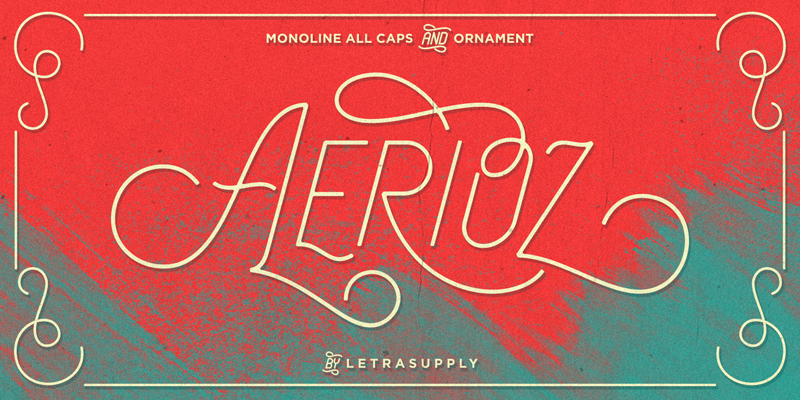
Preview and download Aerioz Font. Created by Letrasupply Typefoundry in Basic Sans serif styles with Free for personal use license.
Aerioz is a monoline all caps font, comes with over 600 characters including 324 alternate letters. Smooth with rounded lines, simple, elegant, and perfect in any layout project such a headline magazines, custom name, neon sign and more typography work. Aerioz is packed with ornaments and OpenType alternates, you can combine the regular font with the ornament to make it more perfect. Full version / pro / commercial license buy here : http://letrasupply.bigcartel.com/product/aerioz https://crmrkt.com/l9xd9y Visit for another products: http://letrasupply.bigcartel.com/ https://creativemarket.com/Letrasupply follow ig: https://instagram.com/letrasupply |